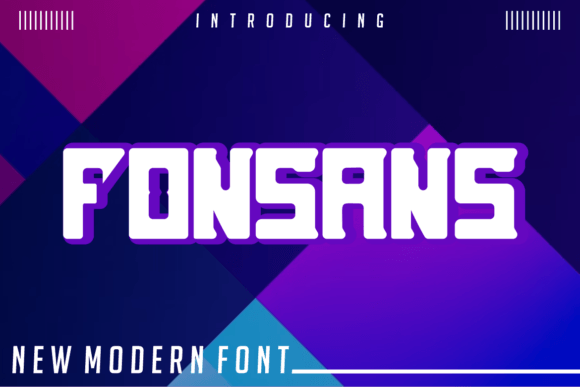
Unleash the Power of Expression with Fonsans: Your Gateway to Captivating Flyer Designs
Welcome to the realm of Fonsans, a spellbinding display font that ignites creativity and transforms your words into captivating expressions. This modern masterpiece is meticulously crafted to elevate your flyer designs, infusing them with a touch of elegance and a dash of intrigue. Unleash the boundless potential of Fonsans and witness how it effortlessly elevates your designs, leaving a lasting impact on your audience.
Fonsans: The Perfect Font for Your Creative Endeavors
Fonsans stands as the perfect companion for your creative adventures. Its dynamic character and eye-catching presence make it an ideal choice for a diverse range of projects, from stunning flyers to captivating posters. Whether you're a seasoned designer seeking to captivate your audience or a novice seeking to make a statement, Fonsans empowers you to weave your creative magic and leave an indelible mark.
A Symphony of Design Possibilities
With Fonsans at your disposal, the possibilities are endless. Let your imagination soar as you craft flyers that resonate with your target audience. From sleek and sophisticated to playful and whimsical, Fonsans effortlessly adapts to your unique vision. Create flyers that demand attention, flyers that speak volumes without uttering a single word. Ignite your creativity and let Fonsans guide you towards design brilliance.
A Font That Stirs Emotions and Inspires Action
Fonsans possesses an inherent ability to evoke emotions and inspire action. Its captivating curves and striking lines hold the power to stir hearts and drive conversions. Whether you're promoting an upcoming event, showcasing a new product, or simply sharing a message with the world, Fonsans amplifies your words and ensures they resonate with your audience. Let Fonsans be your secret weapon in creating designs that captivate, engage, and persuade.
Fonsans: A Font That Speaks Louder Than Words
In a world saturated with visual noise, Fonsans emerges as a beacon of clarity and distinction. Its carefully crafted characters command attention, ensuring your message cuts through the clutter and reaches its intended destination. With Fonsans as your ally, you can create flyers that speak louder than words, flyers that leave an unforgettable impression long after they're seen. Unleash the power of Fonsans and witness the transformative impact it has on your designs.